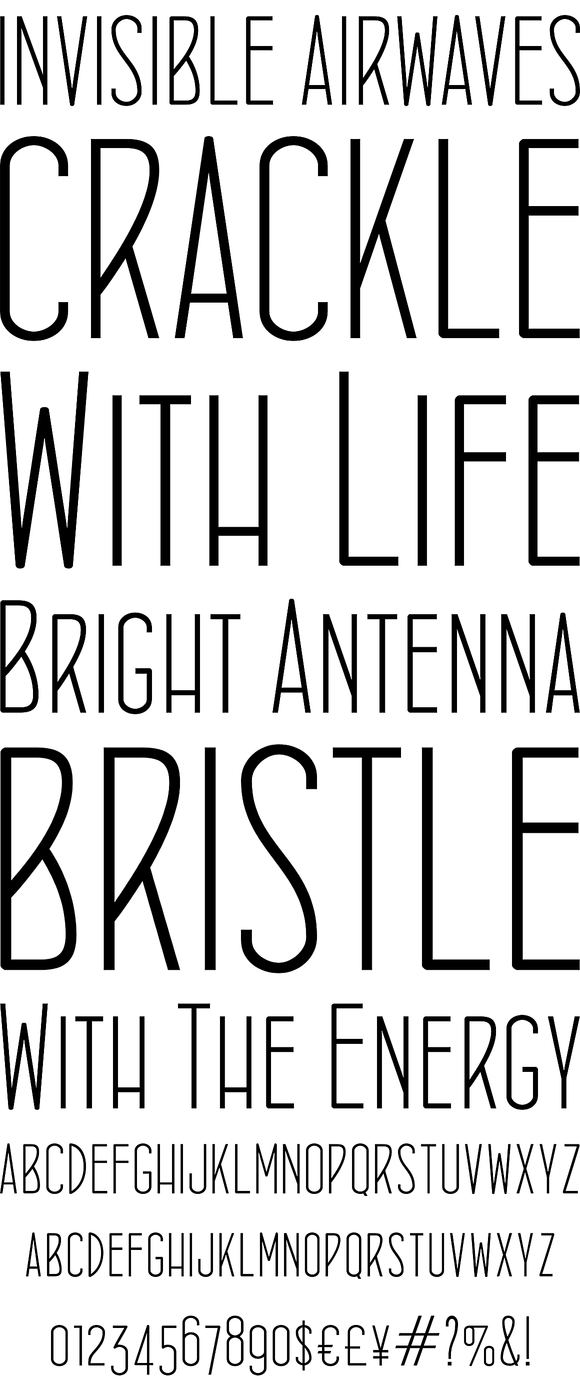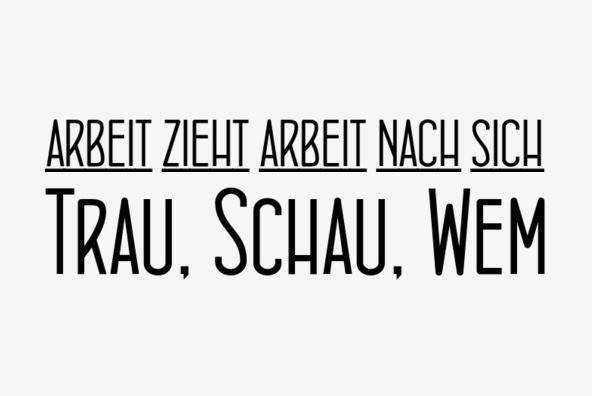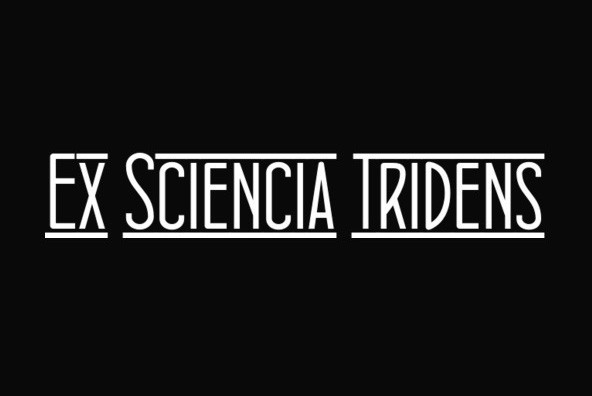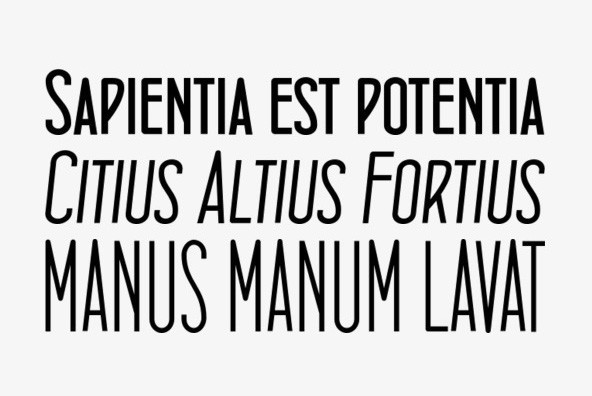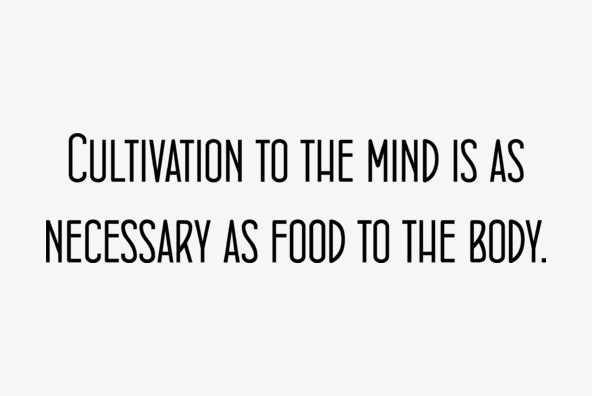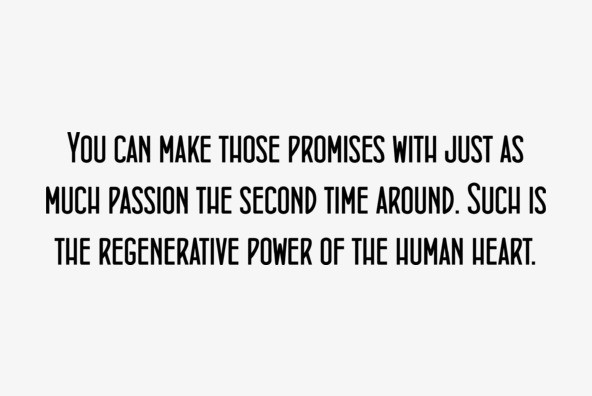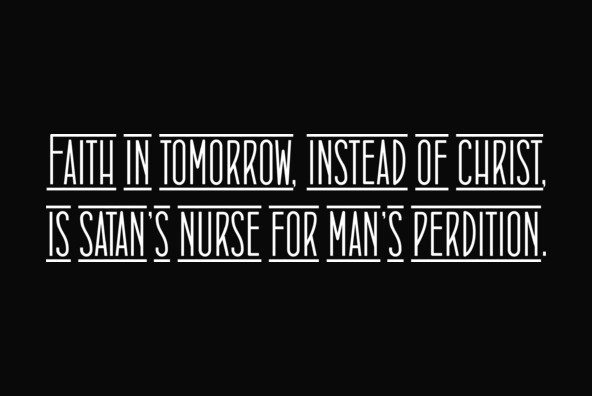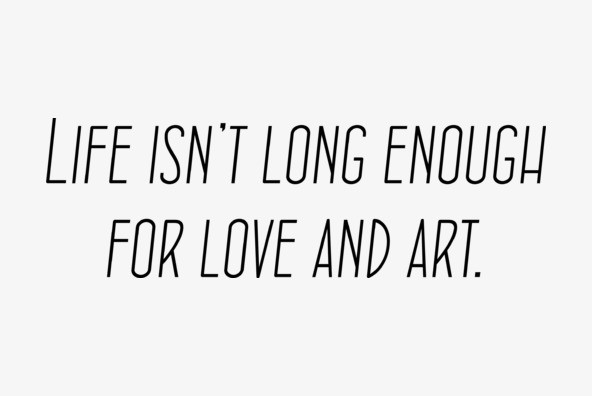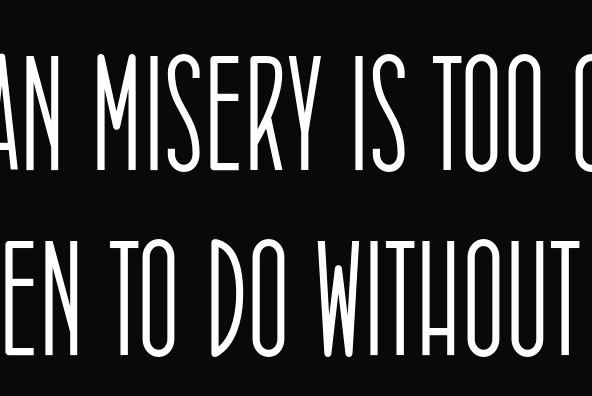
Concurso Italian
Concurso Italian was inspried by travel posters of the 1920s - Use it for travel posters, passports, luggage stickers or an elegant vintage look.